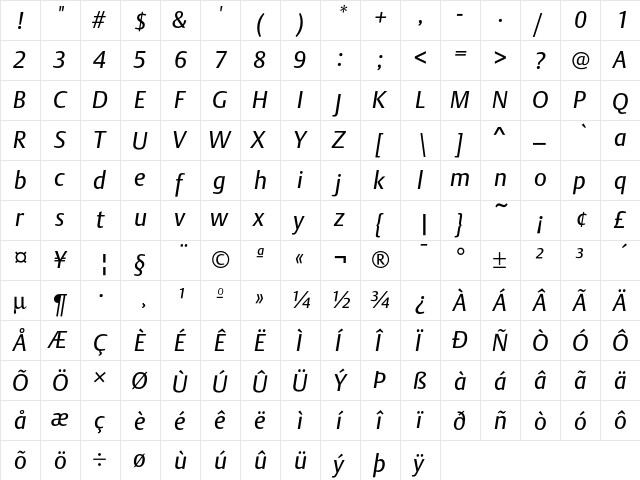
DTL Argo T Italic
| Style | T Italic |
Design Context for DTL Argo Typeface
DTL Argo is a composed and adaptable typeface that performs quietly and consistently across a wide range of design contexts. The dynamic lean of this cut emphasises speed and emphasis in any layout.
Pro Tip: Use DTL Argo for emphasis, pull quotes, and subheadings where its slanted energy can add rhythm to the layout.